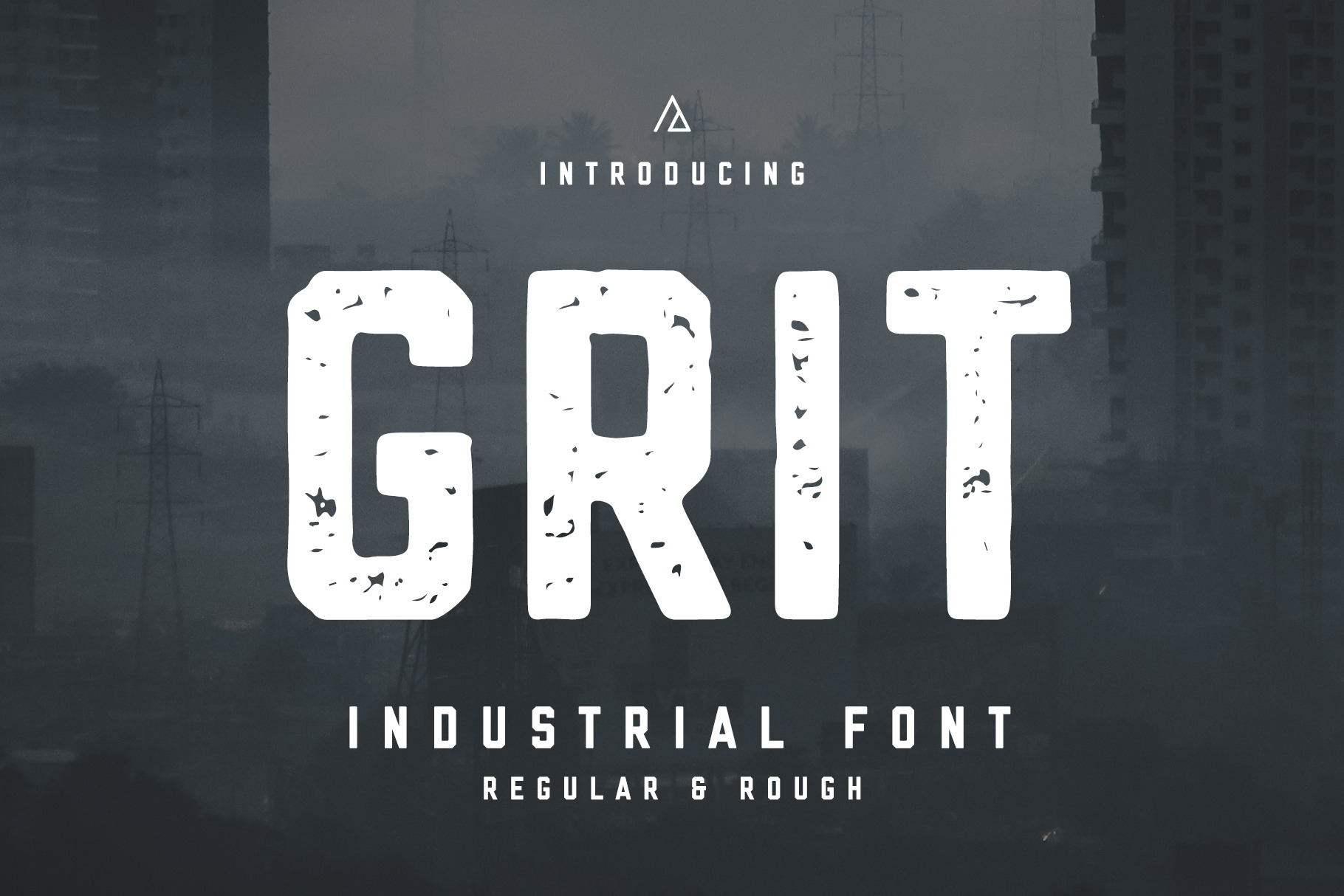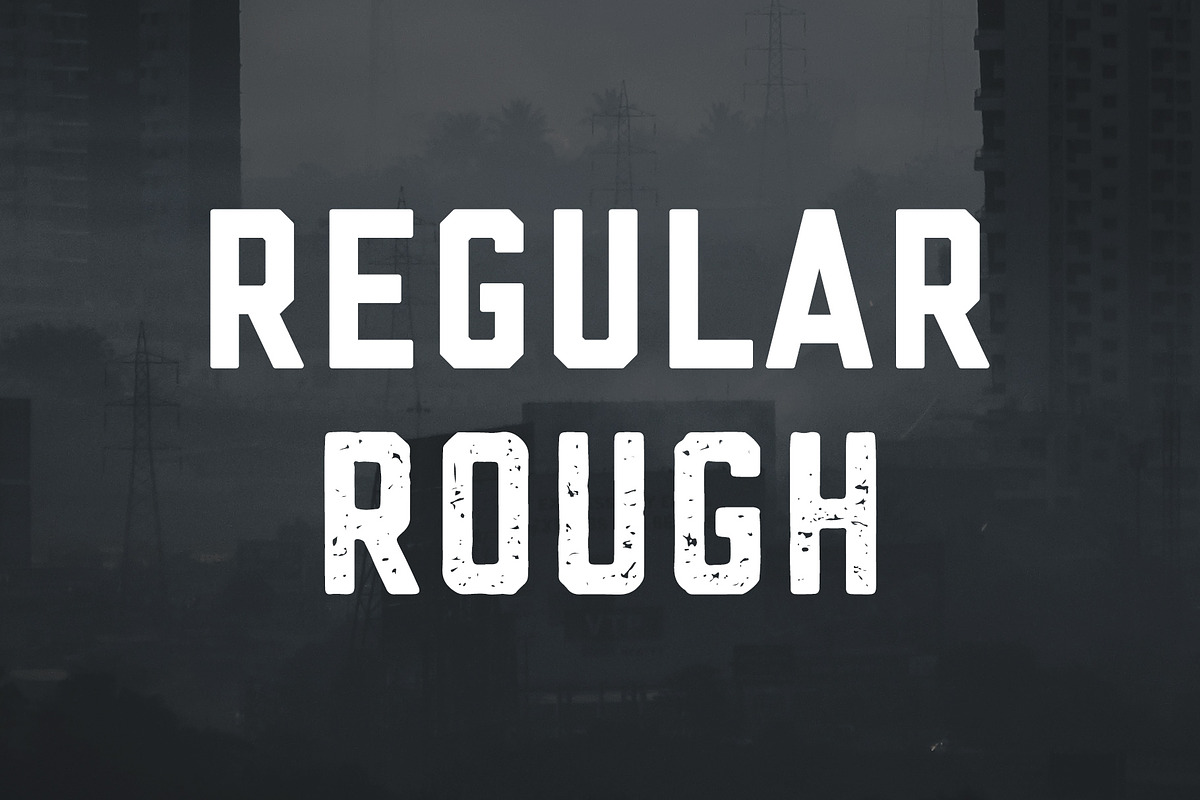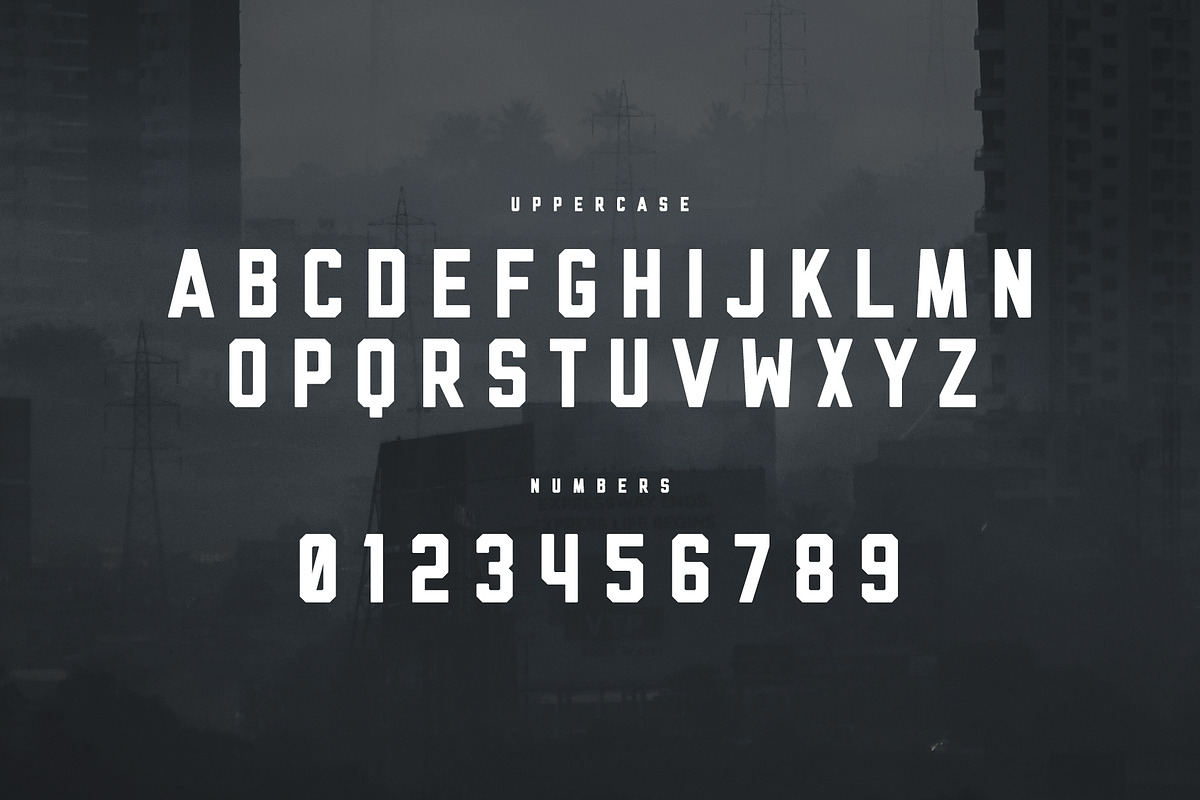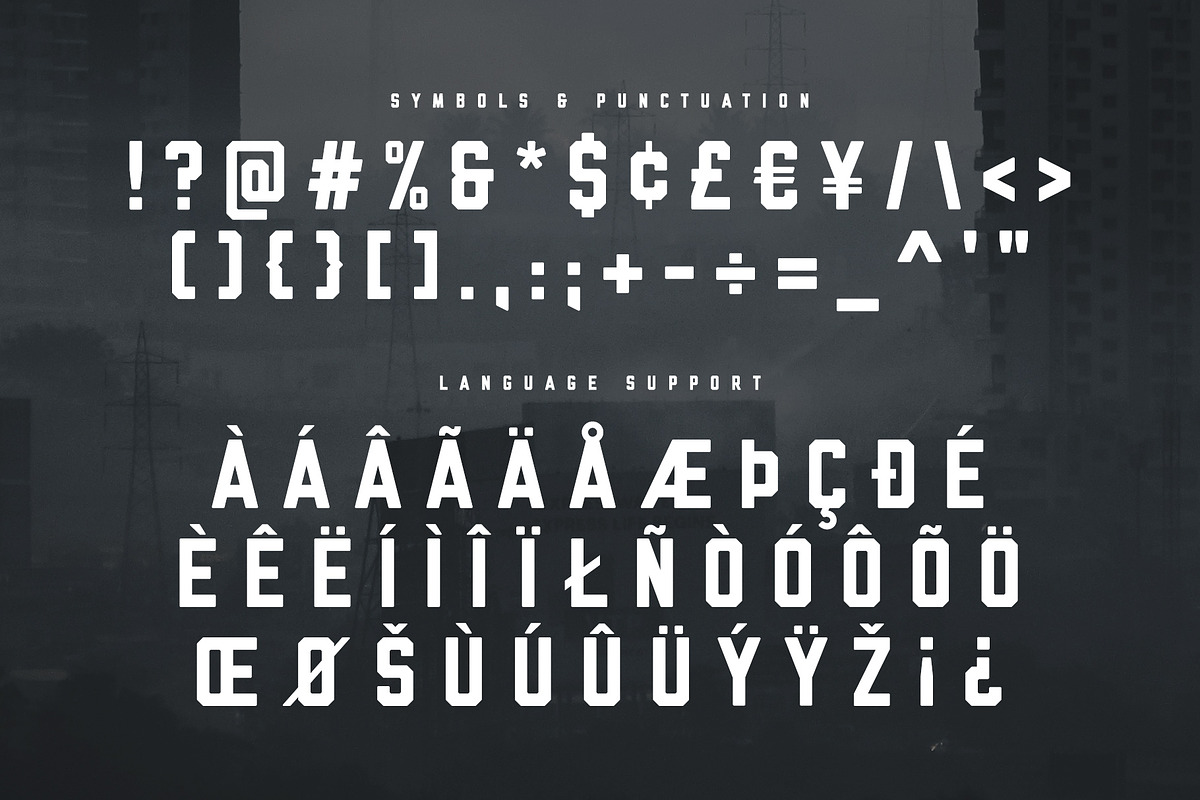
Grit - Industrial Font
Grit is a strong, determined typeface is inspired by industrial factory posters from the 1920's era, it features big bold and condensed letterforms for maximum impact and readability. Inspired by industrial factory and ironworks lettering.
Please note this is an ALL CAPS font that includes all uppercase letters.
- All uppercase letters (no lowercase)
- Numbers 0-9
- Most common symbols and punctuation
- European language support
- Regular & Rough